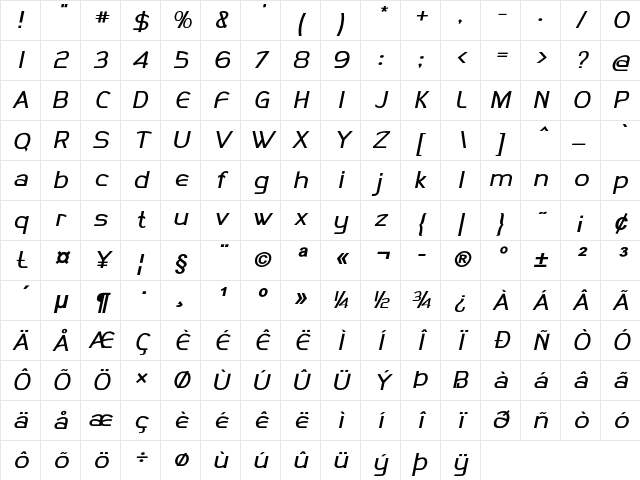
Castoo Bold Italic
Castoo Family
Castoo Bold Italic
Design Context for Castoo
Castoo is a composed and adaptable typeface that performs quietly and consistently across a wide range of design contexts. The slanted form adds forward momentum and visual energy. Its bold stroke weight gives it real presence on the page.